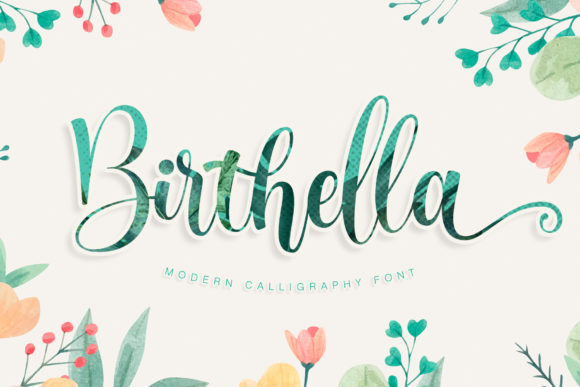
Journey through a whimsical world of charm and elegance with Birthella Font, a captivating script typeface designed to add a touch of magic to your creative endeavors. Its modern and cute handwritten style evokes a sense of authenticity and warmth, inviting you to explore its endless possibilities.
Immerse yourself in the beauty of Birthella Font, a stunning script font family that exudes sophistication and creativity. Whether you're a seasoned designer or just starting, this font is your perfect companion for crafting enchanting wedding invitations, heartfelt stationary art, captivating social media posts, and adorable greeting cards that leave a lasting impression.
With Birthella Font, you'll have a world of versatility at your fingertips. Its PUA encoding allows for effortless access to a treasure trove of glyphs and swashes, while its alternate glyphs and ligatures add an extra layer of charm and uniqueness to your designs. Unleash your imagination and create designs that speak volumes, leaving a trail of enchantment wherever they go.
Birthella Font is more than just a font; it's an invitation to embark on a creative adventure where your ideas take center stage. Its intuitive design and user-friendly features make it a joy to use, ensuring that your creative process is as smooth and seamless as possible. So, dive into the world of Birthella Font and let your creativity soar to new heights!